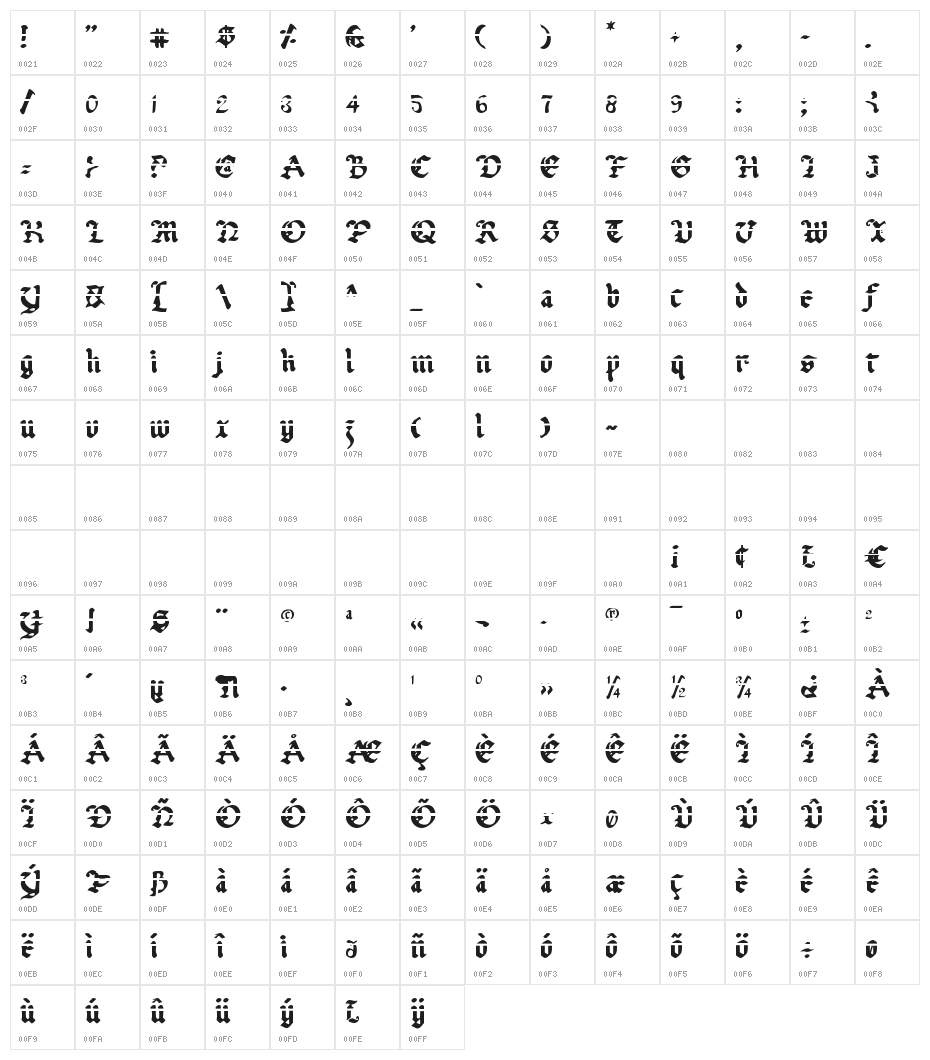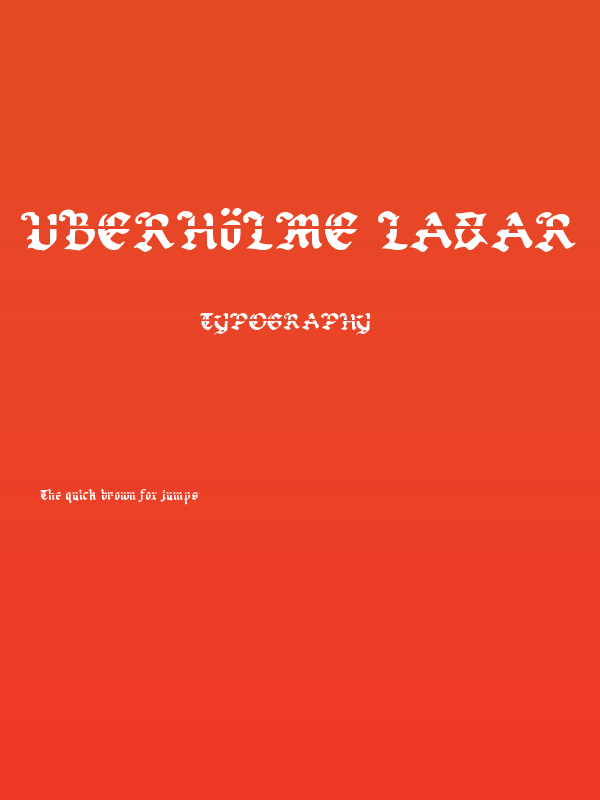
Uberhölme Lazar Font
Uberhölme Lazar Description
This font features a bold and intricate design reminiscent of traditional blackletter styles. The characters are highly stylized with sharp angles and dramatic curves, giving it a strong and authoritative presence. The uppercase letters are particularly ornate, with elaborate flourishes that add a sense of grandeur. The lowercase letters maintain the same level of detail, ensuring consistency throughout the typeface. Numbers and special characters are designed to match the overall aesthetic, making this font suitable for creating a cohesive look across different types of text.
| Use Case | Headlines, Logos, Decorative text |
| Proposed Projects | Ideal for projects that require a historical or gothic touch, such as book covers, posters, or branding for vintage-themed events. |